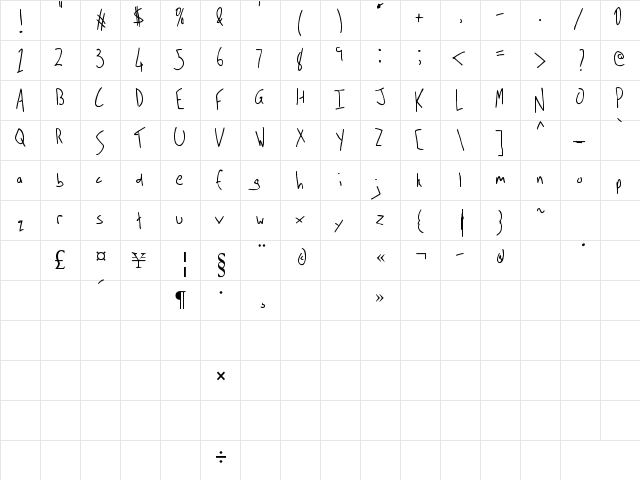
Sign Me Tarnias Regular
Design Context for Sign Me Tarnias Typeface
Sign Me Tarnias is a composed and adaptable typeface that performs quietly and consistently across a wide range of design contexts.